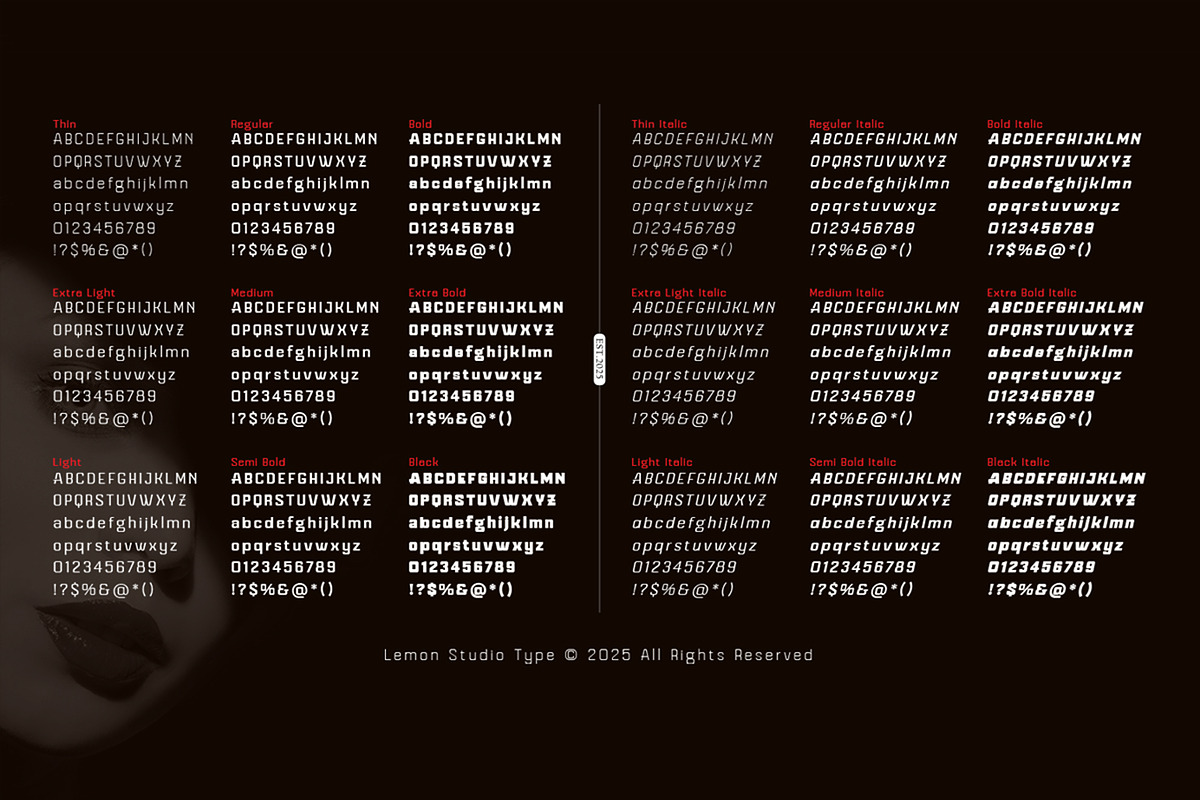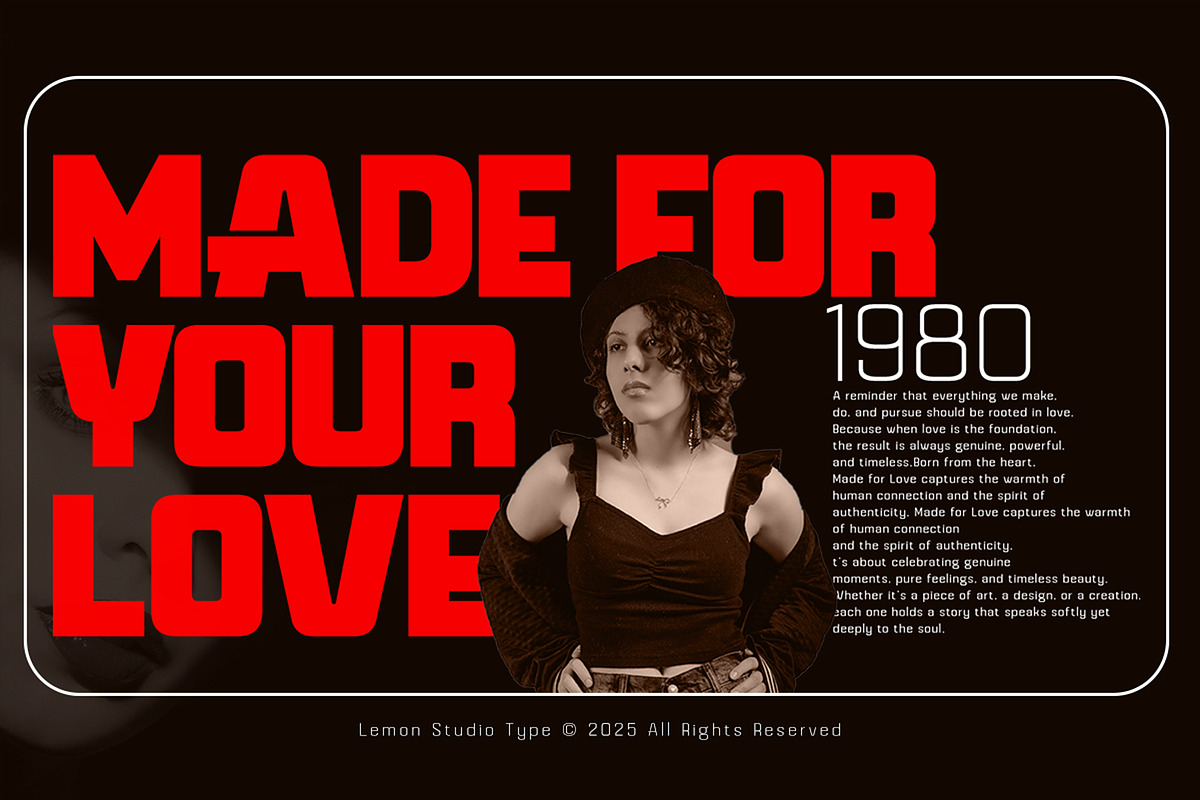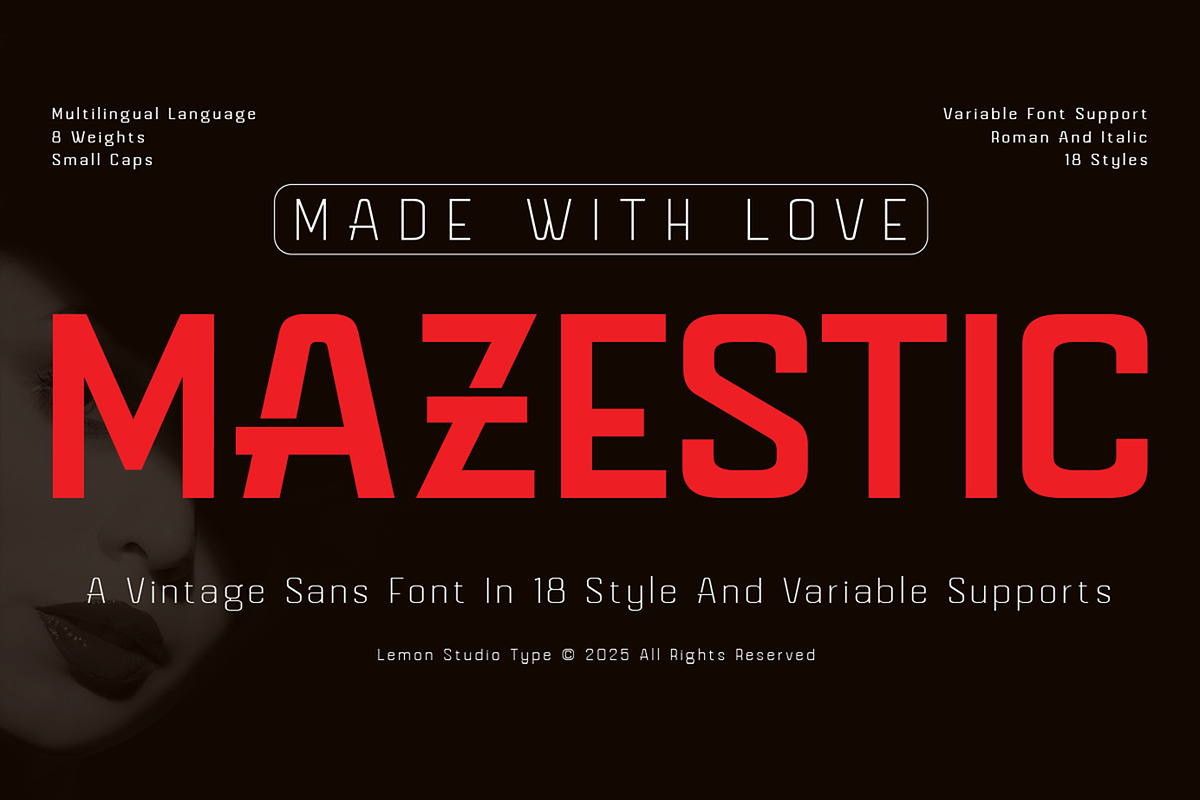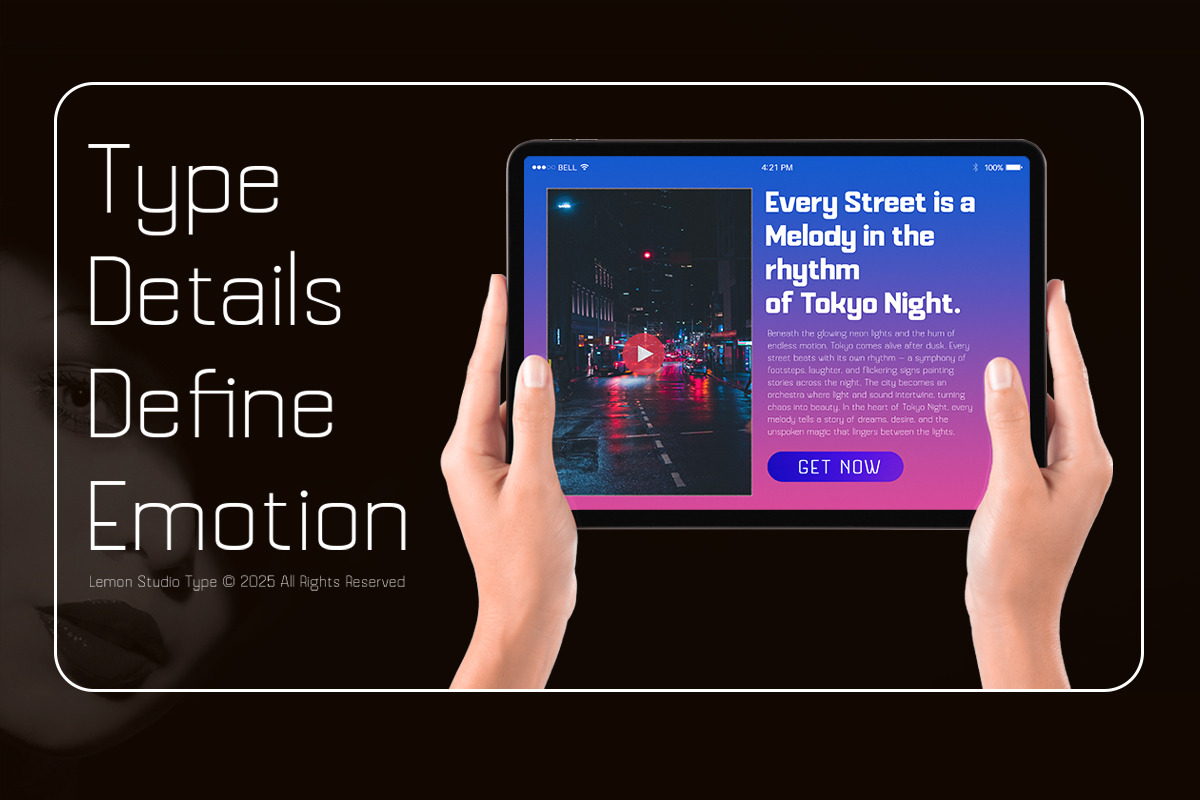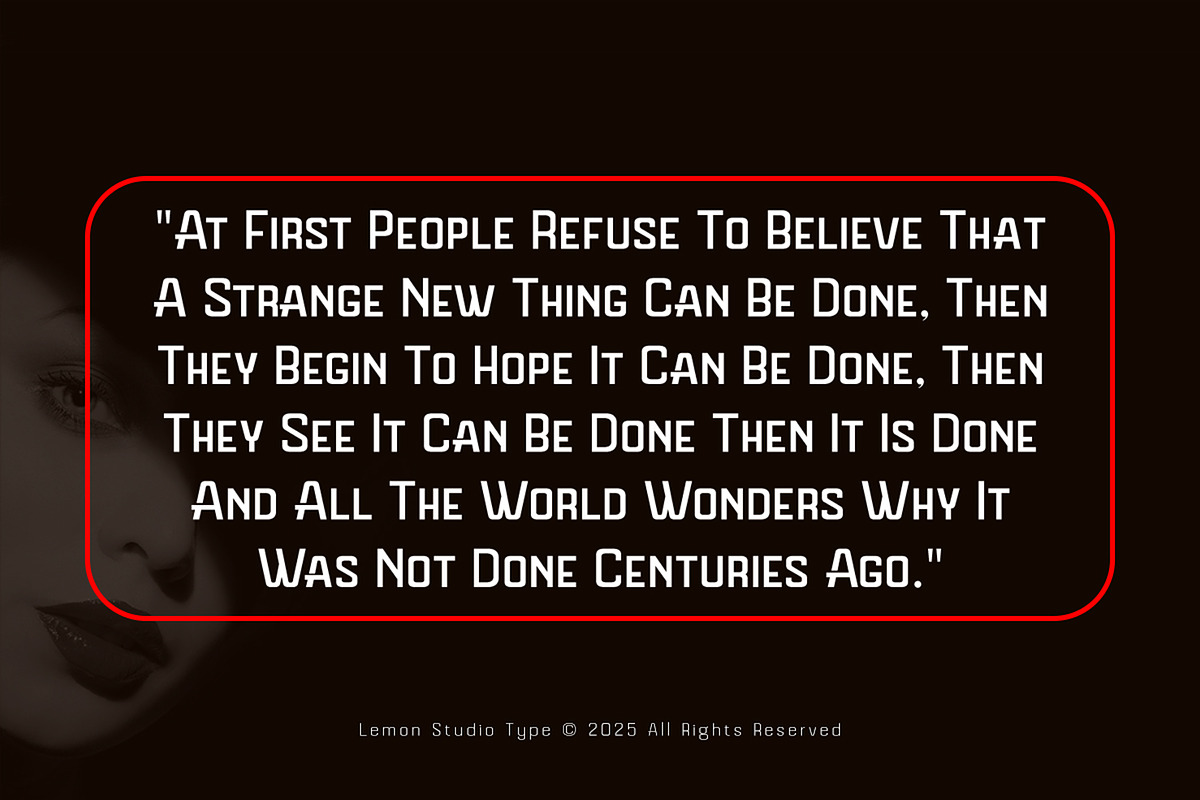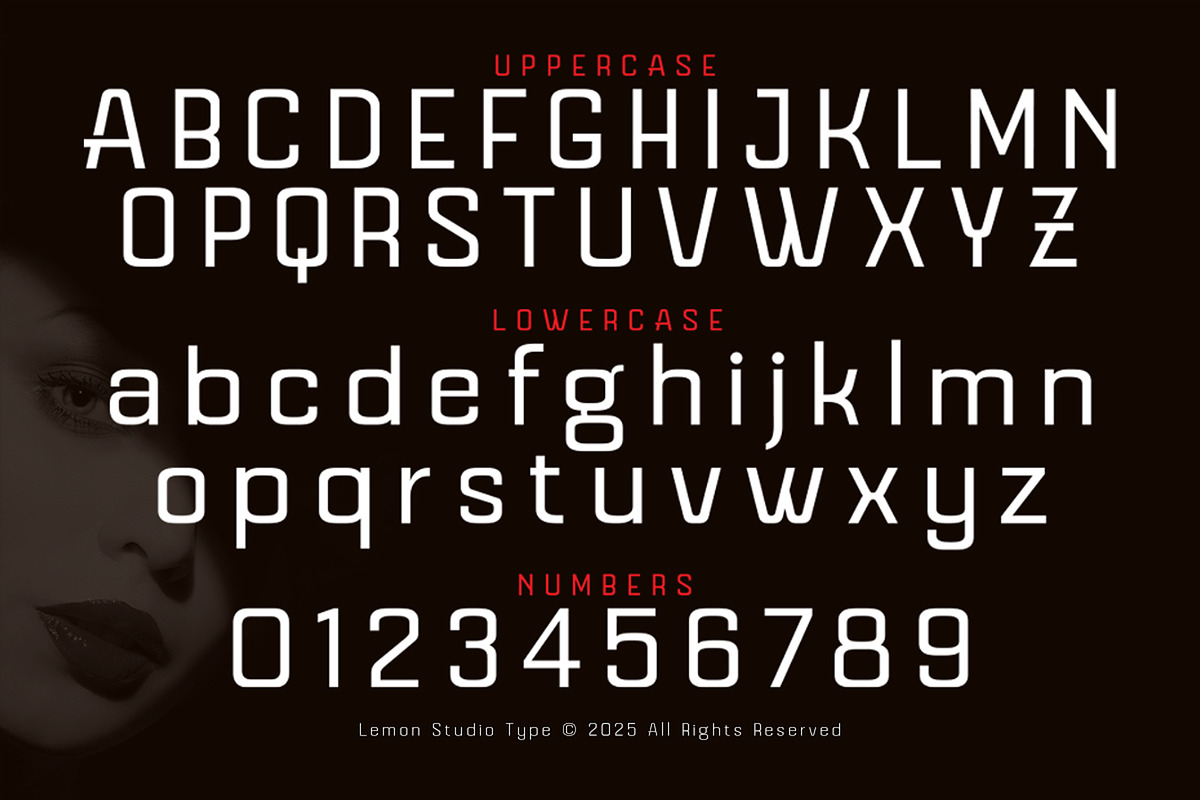
Mazestic Sans
Discover a sophisticated sans serif typeface that artfully blends vintage charm with modern minimalism. Featuring 18 styles and variable font support, this typeface offers exceptional creative flexibility for various projects, including branding, editorial design, posters, and packaging. Each character radiates elegance and confidence, ensuring your designs attract attention and exude effortless sophistication.